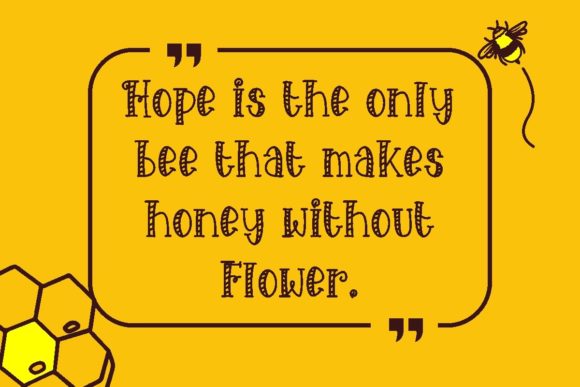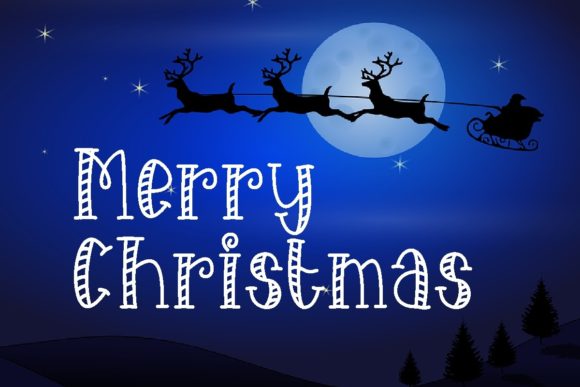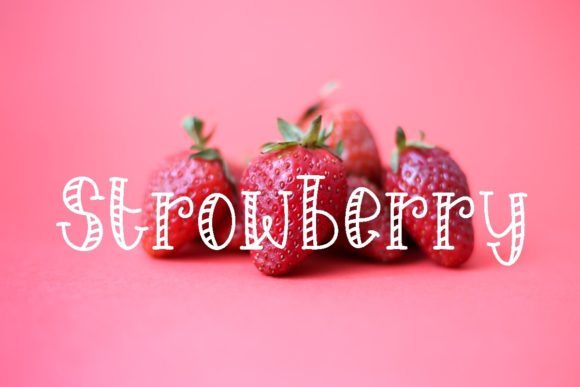
The Buzz on Honey Bee Font
Have you ever been brainstorming ideas for a new project, and suddenly, a spark of creativity hits you like a ray of sunshine on a warm summer day? You envision a beautiful design, and the excitement builds up as you start to visualize the possibilities. This is exactly what happens when designers discover the Honey Bee Font – a fun and cool display font that adds a touch of magic to any project.
The Honey Bee Font is designed to make your creative ideas stand out, and with its versatility, it can be matched to an incredibly large set of projects. Whether you’re working on a logo, a poster, or a social media graphic, this font is sure to bring a smile to your audience’s faces. As a designer, you’ll appreciate the value of having a font that can elevate your work and make it truly memorable.
Honey Bee Font Key Features
- Font Family: Honey Bee Font is a sans-serif font family designed to resemble the buzzing of honey bees.
- Character Count: The font family includes over 200 characters, including uppercase and lowercase letters, numbers, and punctuation marks.
- Unique Characteristics: Honey Bee Font features a distinctive, hand-drawn style with subtle texture and organic feel, evoking the natural world of honey bees.
Honey Bee Font Review
As a designer, I was excited to dive into the Honey Bee Font, and overall, it’s a sweet addition to any design project. ✨ Here are a few things that really shine:
- Unique charm: The Honey Bee Font has a distinct, whimsical feel that’s perfect for projects that need a touch of warmth and personality.
- Excellent legibility: The font is well-designed for readability, making it a great choice for body text or headings where clarity is key.
- Variety of weights: The font comes in a range of weights, from light to bold, allowing for flexibility in design and adding depth to your project.
- Limited character set: The font is limited to a standard character set, which may not be suitable for projects that require a wide range of characters or languages.
- Not ideal for small text: While the font is legible at larger sizes, it can become difficult to read at very small sizes, which may limit its use in certain contexts.
Overall, the Honey Bee Font is a solid choice for designers looking for a unique, charming font. While it may not be perfect for every project, its strengths far outweigh its limitations, making it a great addition to any design toolkit.
Tips for Getting the Most Out of the Honey Bee Font
To get the most out of the Honey Bee Font, consider the following tips:
- Use the font in conjunction with bright, cheerful colors to create a lively and engaging design.
- Combine the Honey Bee Font with other fonts to create a unique and eye-catching design.
The Honey Bee Font is commonly used in:
- Children’s educational materials and toys. Alternative Font Options to Honey Bee Font
What is the recommended usage for the Honey Bee Font?
The Honey Bee Font is designed for body text, headings, and titles. It is ideal for use in digital products, such as websites, mobile apps, and e-books, as well as in print materials like brochures, magazines, and books.